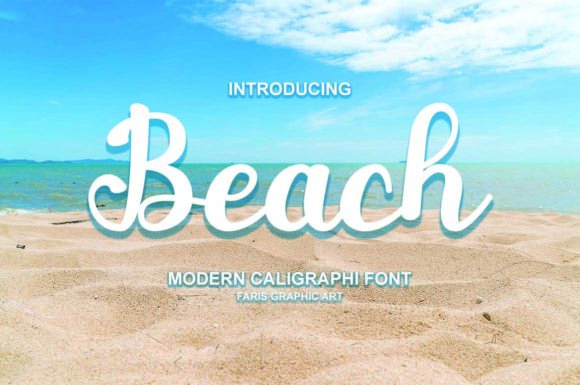
Get Ready to Soak Up the Summer Vibes with Beach Font
Have you ever stared at a beautiful sunset, feeling the warmth of the sand between your toes and the sound of the waves crashing against the shore? That’s exactly the kind of creative moment that inspired the designers to create Beach Font – a flowing handwritten font that captures the essence of a perfect summer day.
Beach Font is more than just a font, it’s a way to add a touch of summery vibes to your favorite projects. Whether you’re designing a brochure, a website, or a social media post, this font is sure to bring a smile to your face and make your design stand out. Its friendly style and distinct characteristics make it a valuable addition to any designer’s toolkit.
Key Features of Beach Font
- Unique Characteristics: Beach Font features a unique, hand-drawn design with a relaxed, casual feel, perfect for creating a beachy or coastal vibe in your designs.
Designer Review: Beach Font
Overall, I think Beach Font is a decent choice for beach-themed projects, but it’s not without its flaws. Here’s what works well:
- ✨ The font is legible, even at smaller sizes, which is a must for any font.
- ✨ The font’s rounded edges and soft curves give it a friendly, approachable feel that’s perfect for beach-inspired designs.
- ✨ The font includes a variety of weights and styles, which makes it easy to customize for different uses.
- ⚠️ The font’s design can feel a bit generic and lacks a unique personality, which may make it harder to stand out in crowded markets.
- ⚠️ Some of the weights and styles feel a bit inconsistent, which can be distracting in certain designs.
- ⚠️ The font may not be the best choice for projects that require a more serious or formal tone.
Overall, I think Beach Font is a solid choice for beach-themed projects, but it may not be the best fit for every design need. With a bit of creativity and customization, it can be a great addition to any designer’s toolkit.
Tips for Getting the Most Out of Beach Font
Use Beach Font to add a relaxed, beachy vibe to your designs.
Pair Beach Font with images of palm trees, sunsets, or beach scenes for a cohesive look.
Beach Font is perfect for:
Summer-themed social media posts
Beach party invitations
Travel brochures
Alternatives to Beach Font for Designers
Great Vibes is a beautiful, cursive script font perfect for adding a touch of elegance and sophistication to your designs. It’s ideal for use in wedding invitations, luxury branding, and any project that requires a high-end, premium feel.
Compared to Beach Font, Great Vibes is more refined and less playful, making it a better choice for formal projects. While Beach Font is great for casual, beach-themed designs, Great Vibes excels in creating a sense of luxury and sophistication.
Lobster is a fun, cursive font that’s perfect for adding a touch of playfulness and whimsy to your designs. It’s ideal for use in food branding, event invitations, and any project that requires a lighthearted, casual feel.
Compared to Beach Font, Lobster is more casual and less elegant, making it a better choice for projects that require a fun, laid-back vibe. While Beach Font is great for beach-themed designs, Lobster excels in creating a sense of playfulness and fun.